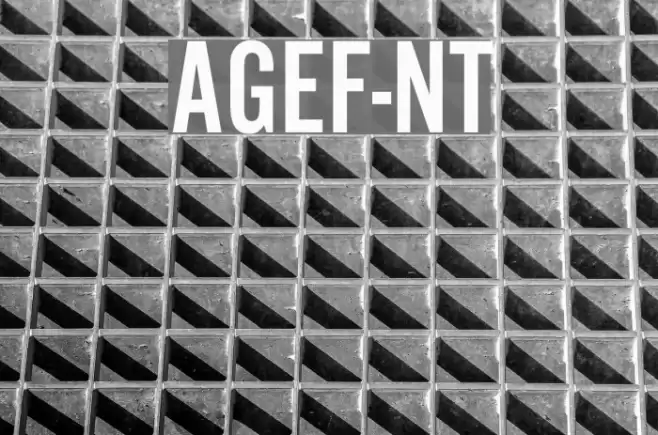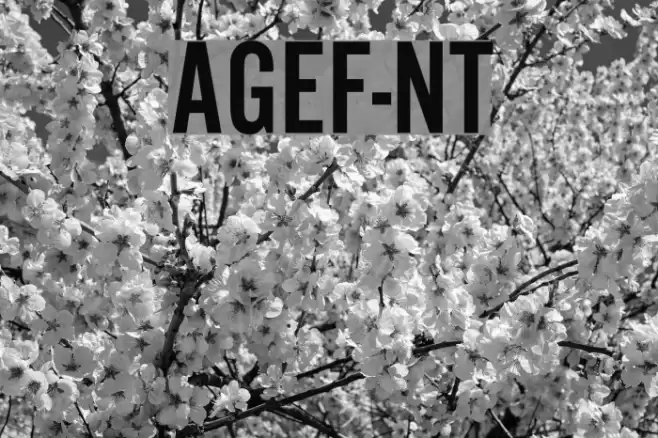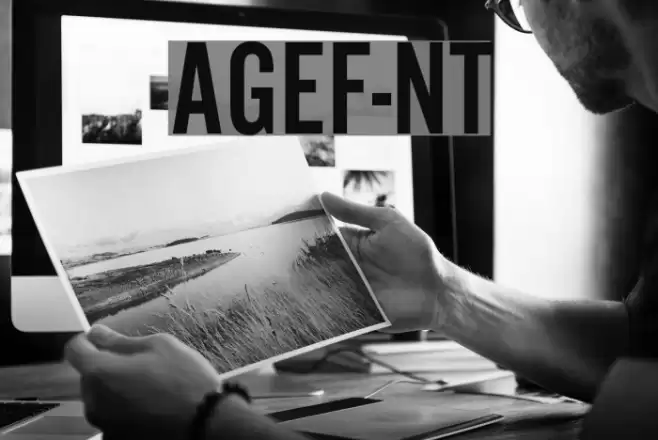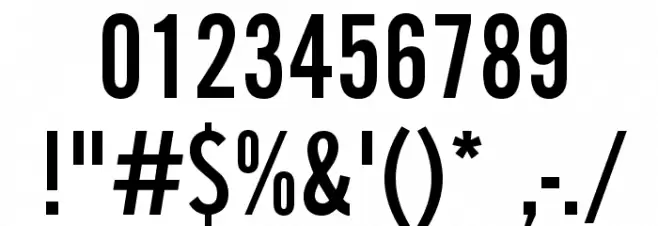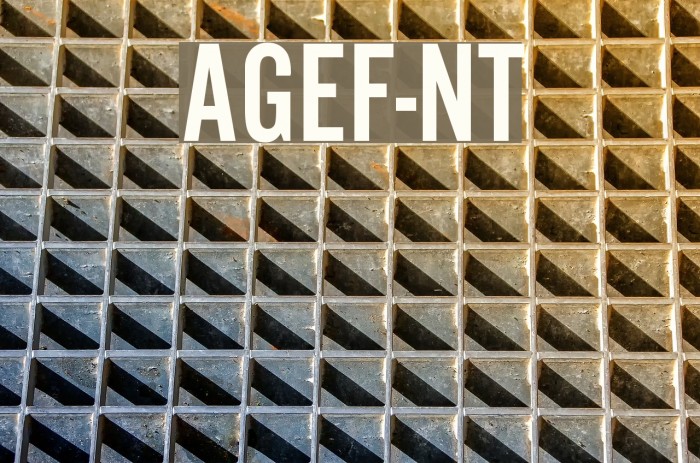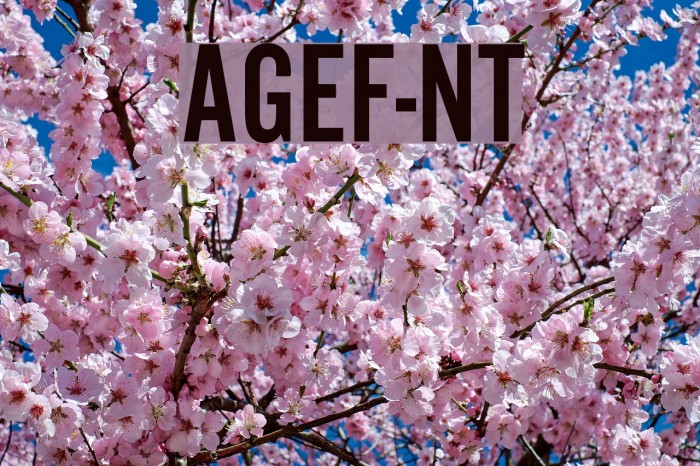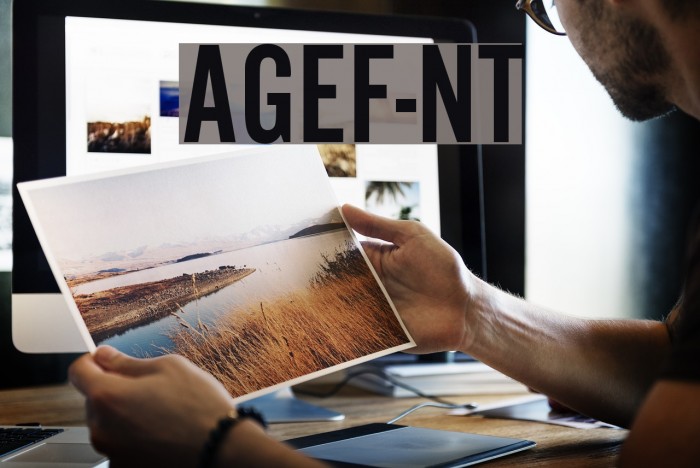
AlternateGothicEF-NoTwo Font
AlternateGothicEF-NoTwo Description
This font features a bold and condensed sans-serif style, characterized by its strong vertical emphasis and clean lines. The uppercase letters are tall and narrow, providing a modern and assertive appearance. The lowercase letters maintain a consistent width, offering a harmonious balance with the uppercase set. Numerals are clear and straightforward, ensuring readability. Special characters are well-defined, complementing the overall design. This font's simplicity and clarity make it versatile for various applications.
A bold, condensed sans-serif font with a modern and assertive style from Uncategorized fonts.
- Proposed Projects: Ideal for headlines, posters, branding, and advertising where a strong visual impact is needed.
- Character Spacing: Tight